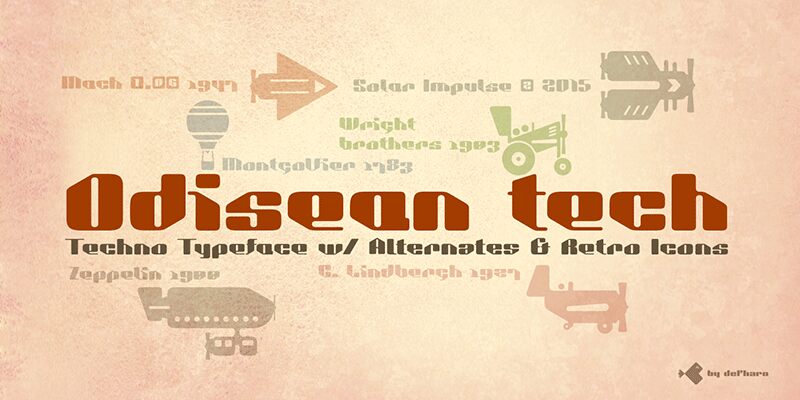
Odisean Tech Font, designed by Fernando Haro, is a bold and extra-expanded display font with a futuristic and techno style.
Perfect for large sizes, it brings a retro charm to any project with its alternative lettering and retro transportation icons. Whether you're designing album covers, posters, or advertisements, Odisean Tech will transport you to a bygone era while offering alternative lyrics that evoke the aesthetic of the golden and happy years. This font is ideal for those who love technology and innovation, as it is packed with graphic elements and retro transportation icons that will immerse you in a futuristic world of the past.
Odisean Tech is a typographic experiment where all the proportions and measures of the characters and metrics are multiples of the number eight. The result is a very steep typography of square proportion with a great contrast between the horizontal / vertical horns and rounded in all corners.